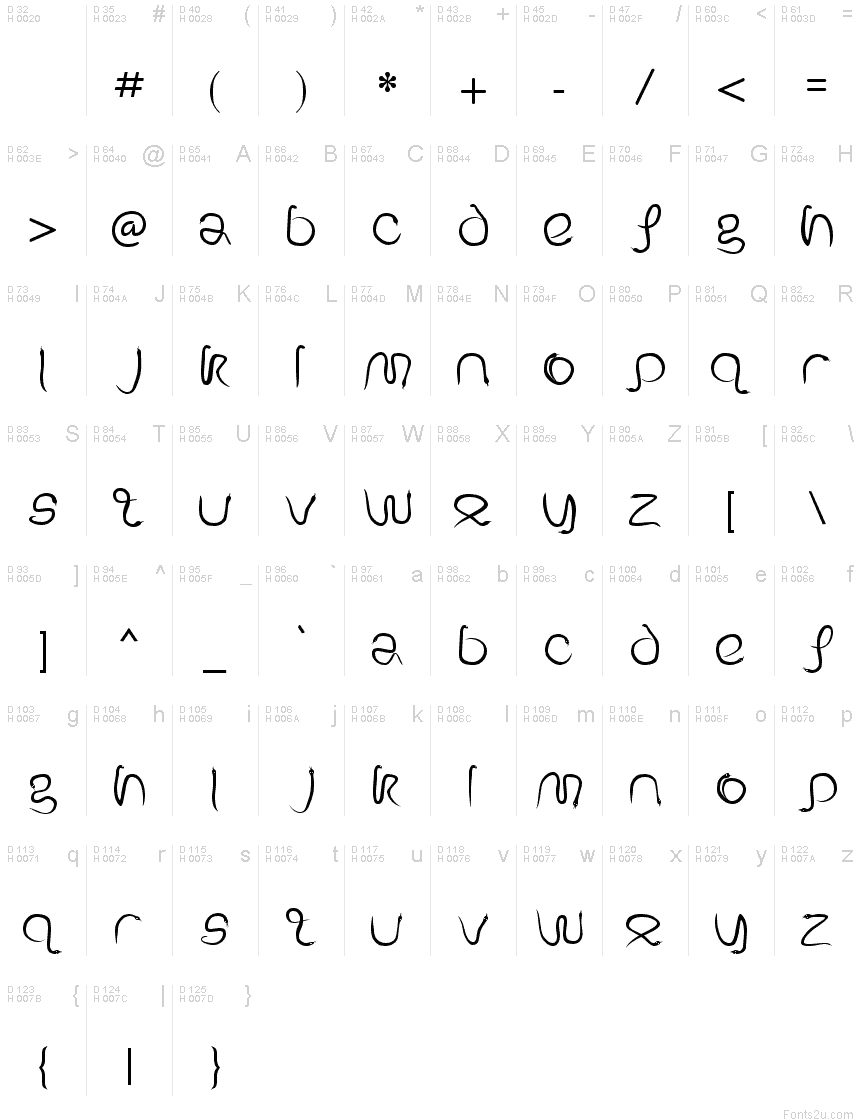
Serpent by Robert Schenk is a free illustrated calligraphic display font built from loose, looping strokes and tiny snake heads that emerge from the letter ends. Its rounded forms have an unhurried, hand-drawn line, with broad curves and long trailing strokes making the reptile motif part of the alphabet rather than an added decoration.
Packaging suits its playful menace, especially on novelty sweets and fantasy games. For children's entertainment, posters, and merchandise, the recurring heads and curling tails can turn a title into a compact serpent illustration or a mascot-like emblem with a sly comic edge.
Serpent